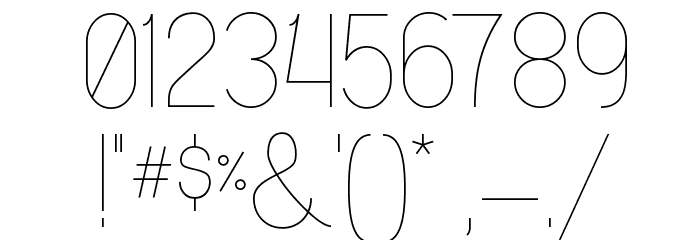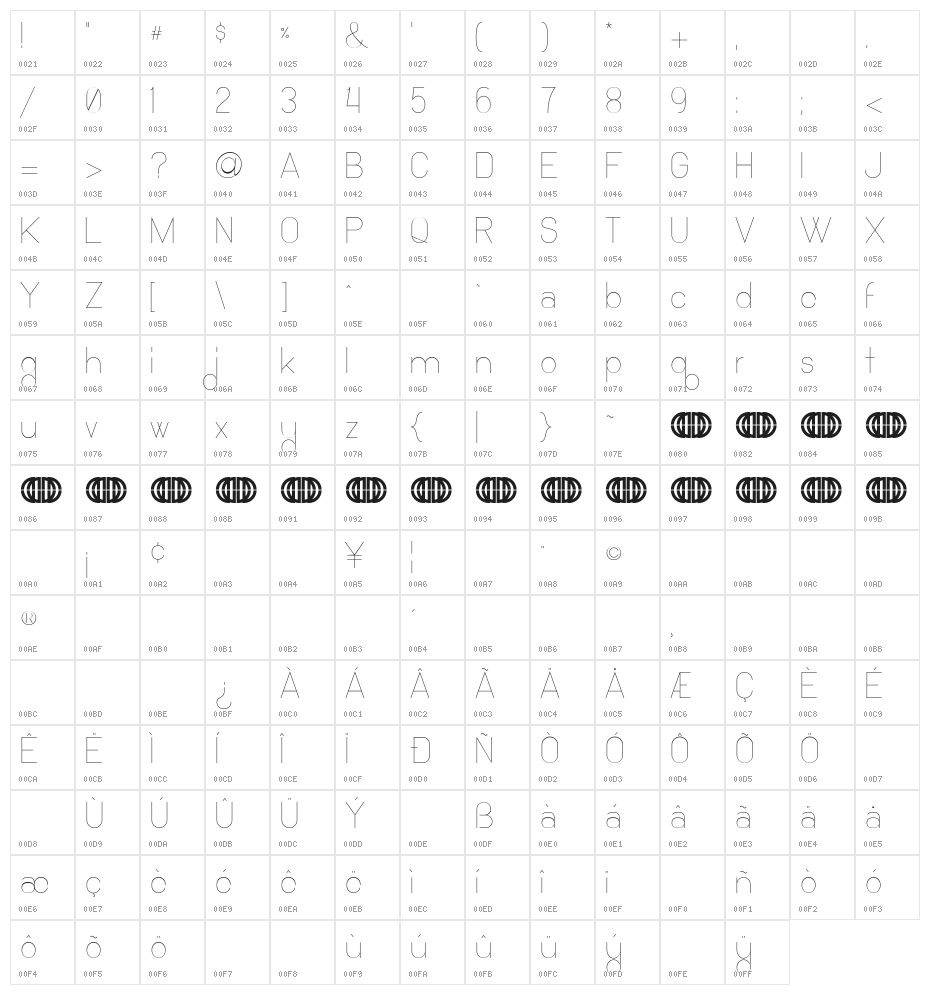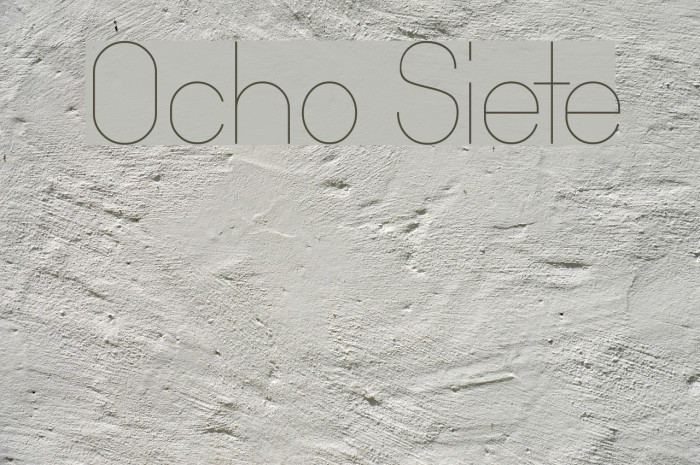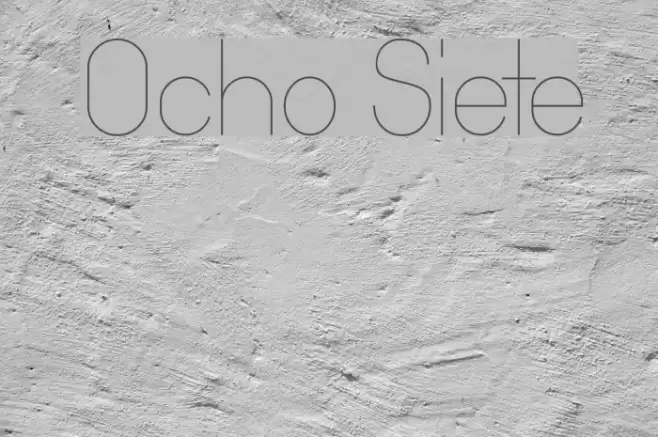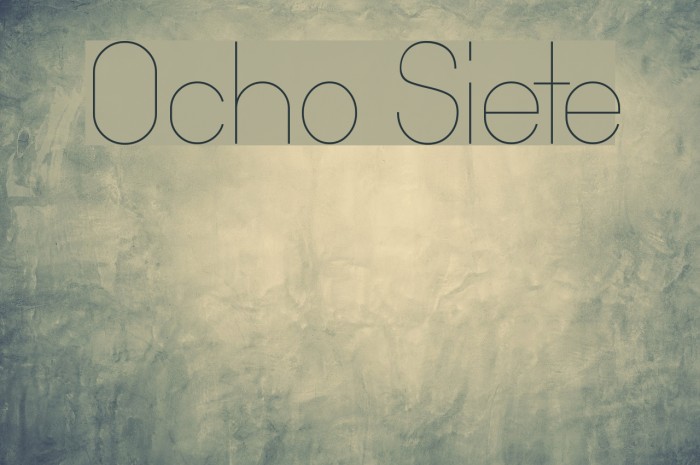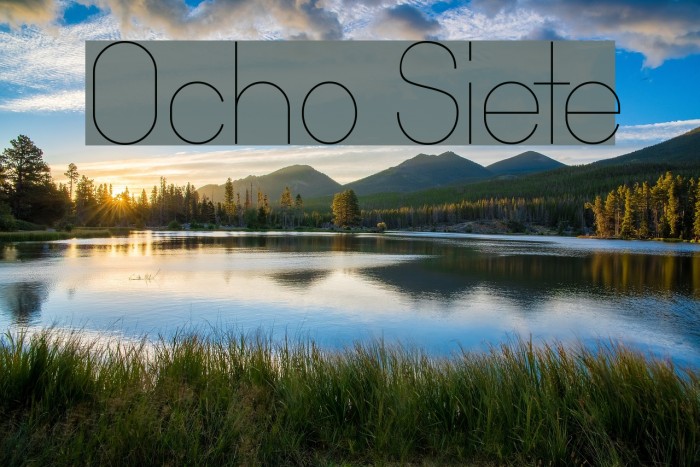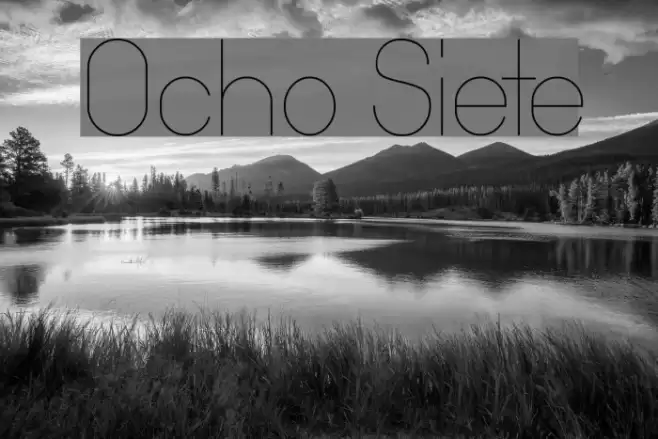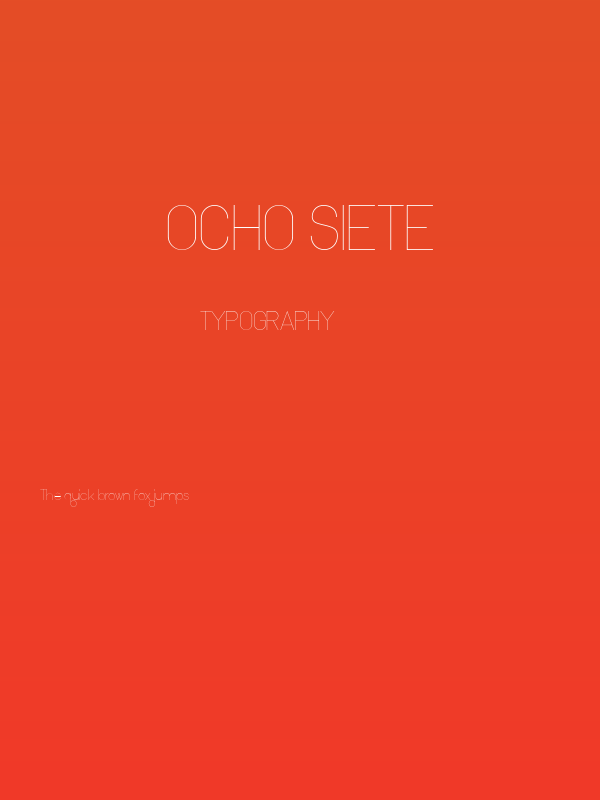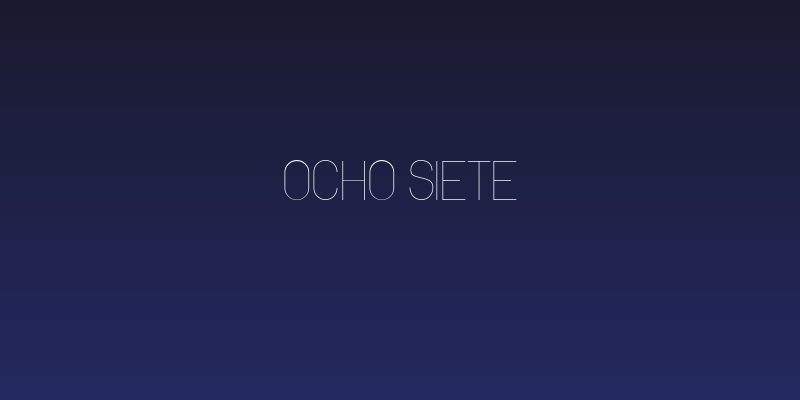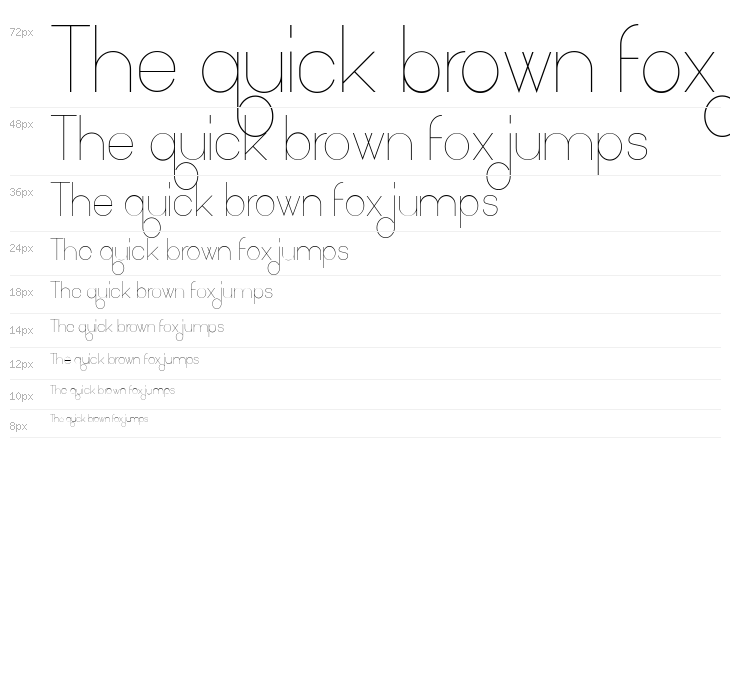
This font features a modern, minimalist design with thin, clean lines and a geometric structure. The uppercase and lowercase letters maintain a consistent height, creating a harmonious and balanced appearance. The numerals and special characters follow the same sleek style, ensuring uniformity across all elements. The font's simplicity and elegance make it versatile for various design applications. Its linear and open forms contribute to a contemporary aesthetic, making it suitable for projects that require a fresh and uncluttered look.
| Proposed Projects | Ideal for branding, editorial design, digital interfaces, and minimalist posters. |